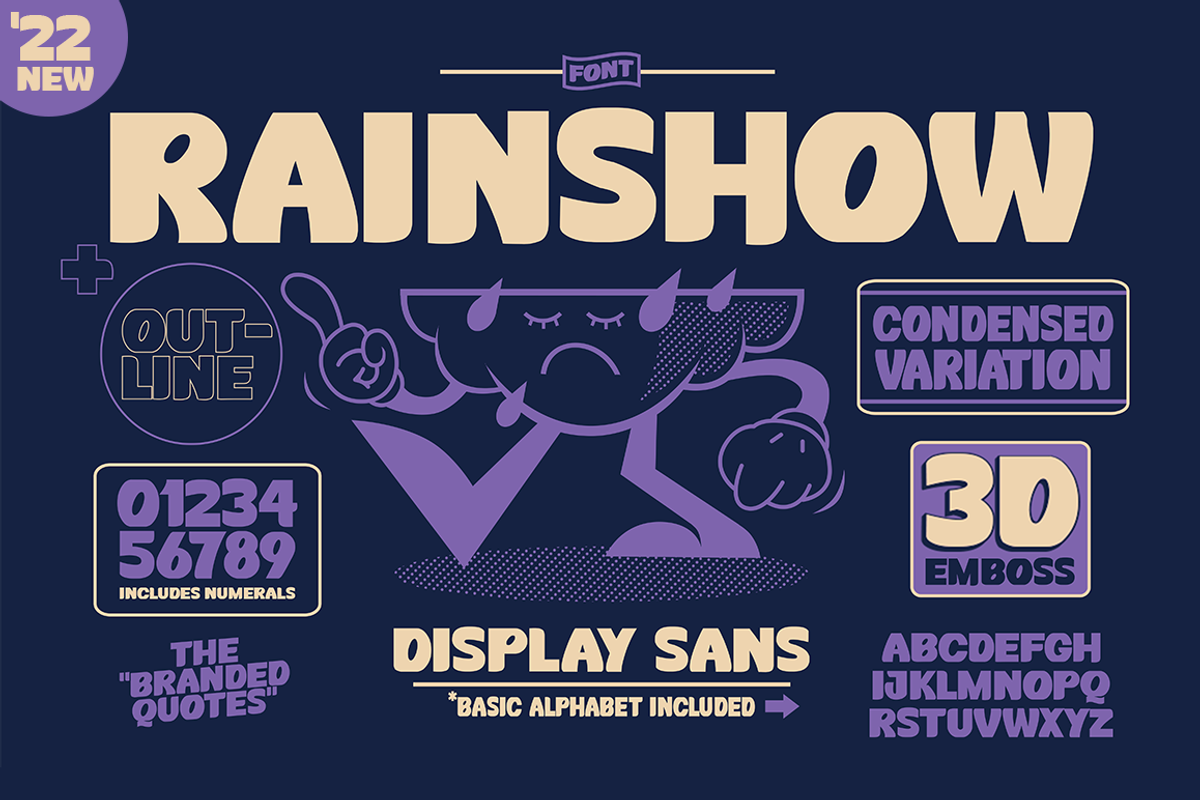
Rainshow Display Sans Font is perfect for weather-themed branding, outdoor event promotions, nature-inspired campaigns, children's book design, seasonal marketing materials, environmental awareness projects, playful poster design, refreshing product packaging, clean website headers, modern advertising campaigns, vibrant social media graphics, and contemporary display typography applications.
Rainshow Display Sans Font is exciting because it captures the refreshing energy and joyful spirit of summer rain showers through its clean, modern letterforms that embody freshness, clarity, and the revitalizing power of nature's most beautiful weather phenomena. This delightful typeface features crisp geometric proportions with playful character details that evoke the clean feeling after rainfall and the bright optimism of clearing skies. The font's fresh aesthetic creates instant connections with audiences who appreciate natural beauty, environmental consciousness, and the uplifting energy of refreshing weather.
Rainshow Display Sans Font includes comprehensive font families: Regular Fresh Style, Bold Storm Weight, Light Drizzle Touch, Medium Shower Balance, Italic Flowing Rain, Condensed Cloud Format, Extended Sky Width, Ultra Light Mist, Black Thunder Style, and Special Weather Symbols, providing complete solutions for weather-inspired and nature-themed design projects that celebrate environmental beauty and natural phenomena.
This refreshing typography solution transforms ordinary communications into uplifting weather experiences through its clean modern aesthetic and nature-inspired design energy. Rainshow Display Sans Font Free Download enables designers and environmental brands to access premium weather typography that instantly adds freshness, clarity, and natural appeal to any creative project. The font's carefully crafted proportions ensure excellent readability while maintaining distinctive weather-inspired character and contemporary display presence.
Environmental brands, outdoor companies, and nature-focused businesses trust Rainshow Display Sans Font for its ability to communicate freshness, environmental consciousness, and natural vitality to audiences seeking authentic connections with nature and weather-inspired experiences. The typeface's clean construction performs beautifully across various applications, from intimate environmental communications to large-scale outdoor advertising campaigns. Its extensive character support includes multilingual capabilities and weather design elements that enhance nature-focused brand presentations.
The design inspiration behind Rainshow Display Sans Font draws from the cleansing beauty of rainfall, the clarity of washed skies, and the universal human appreciation for refreshing weather that brings renewal and natural vitality. This nature-focused approach creates a font that feels genuinely refreshing while maintaining contemporary sophistication across different environmental contexts and weather-inspired brand expressions.